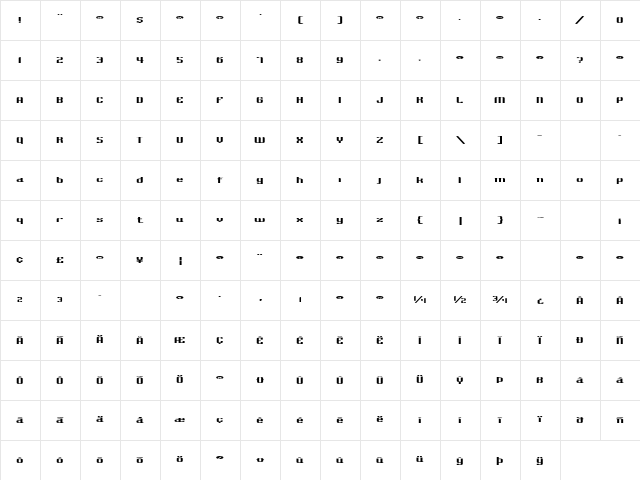
BadlocICG Compression
Style: Compression
BadlocICG Family
Complete BadlocICG Compression glyph index. Displaying only characters natively supported by BadlocICG Compression font.
Design Context for BadlocICG
BadlocICG is a composed and adaptable typeface that performs quietly and consistently across a wide range of design contexts.